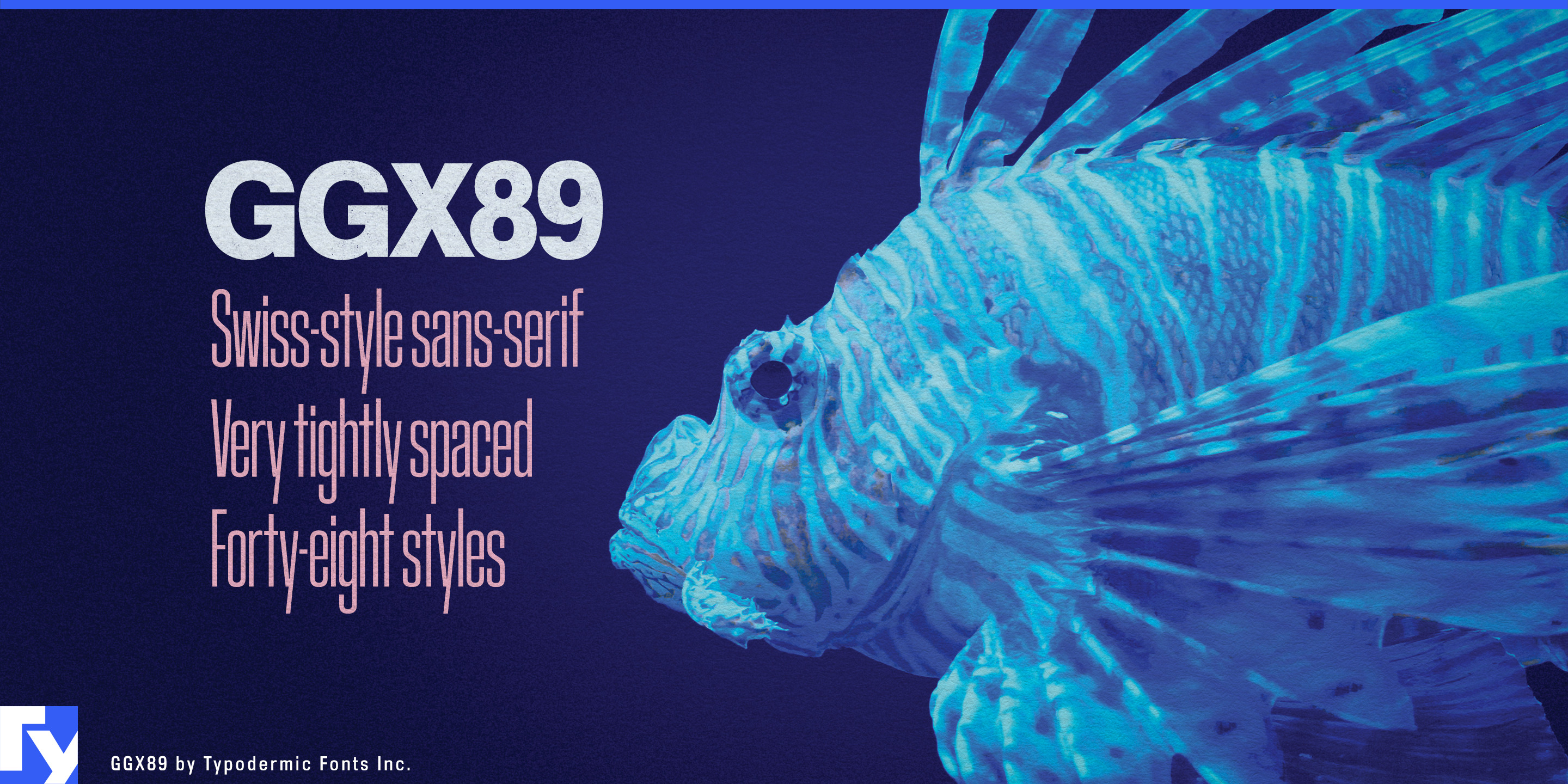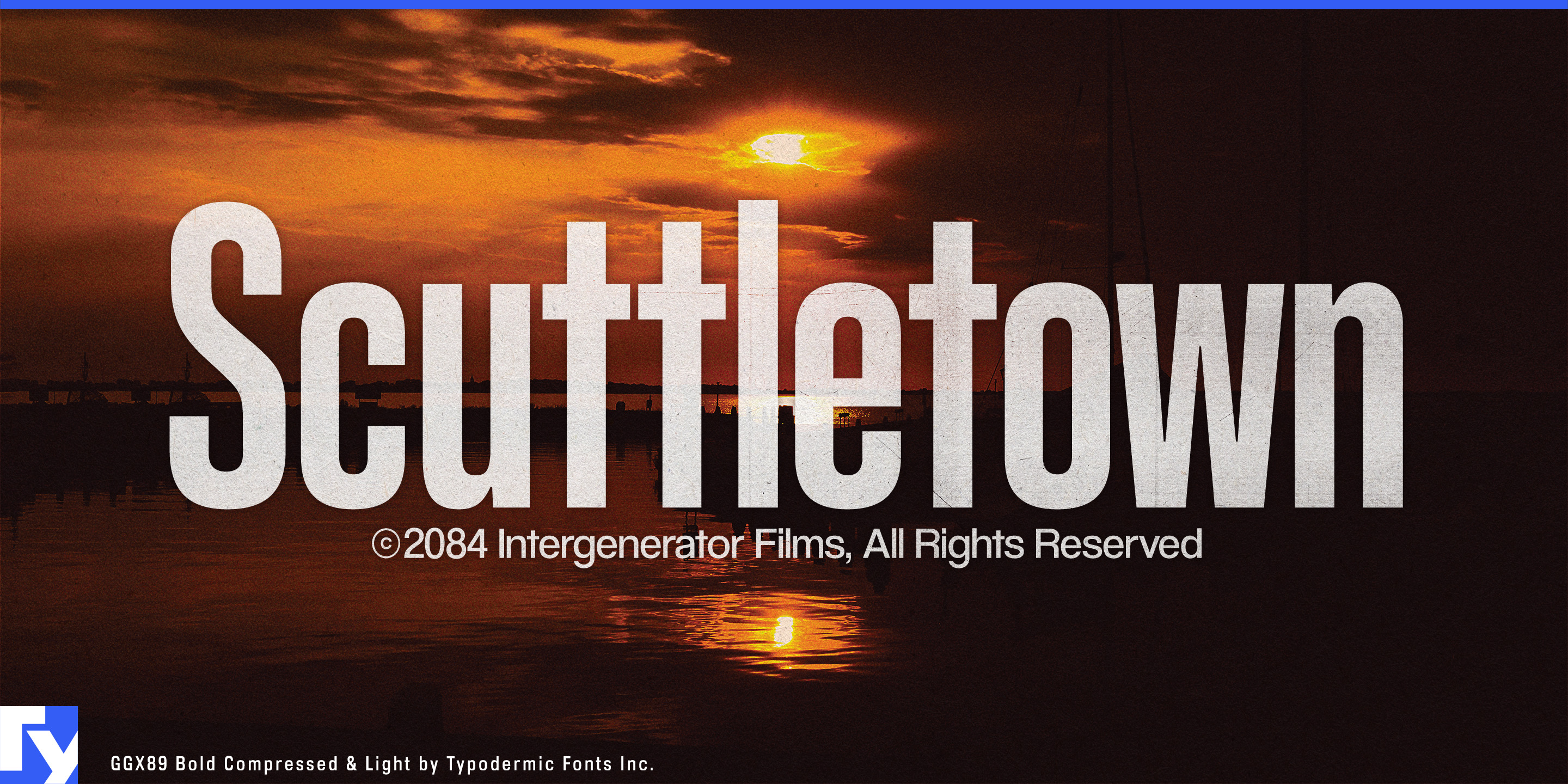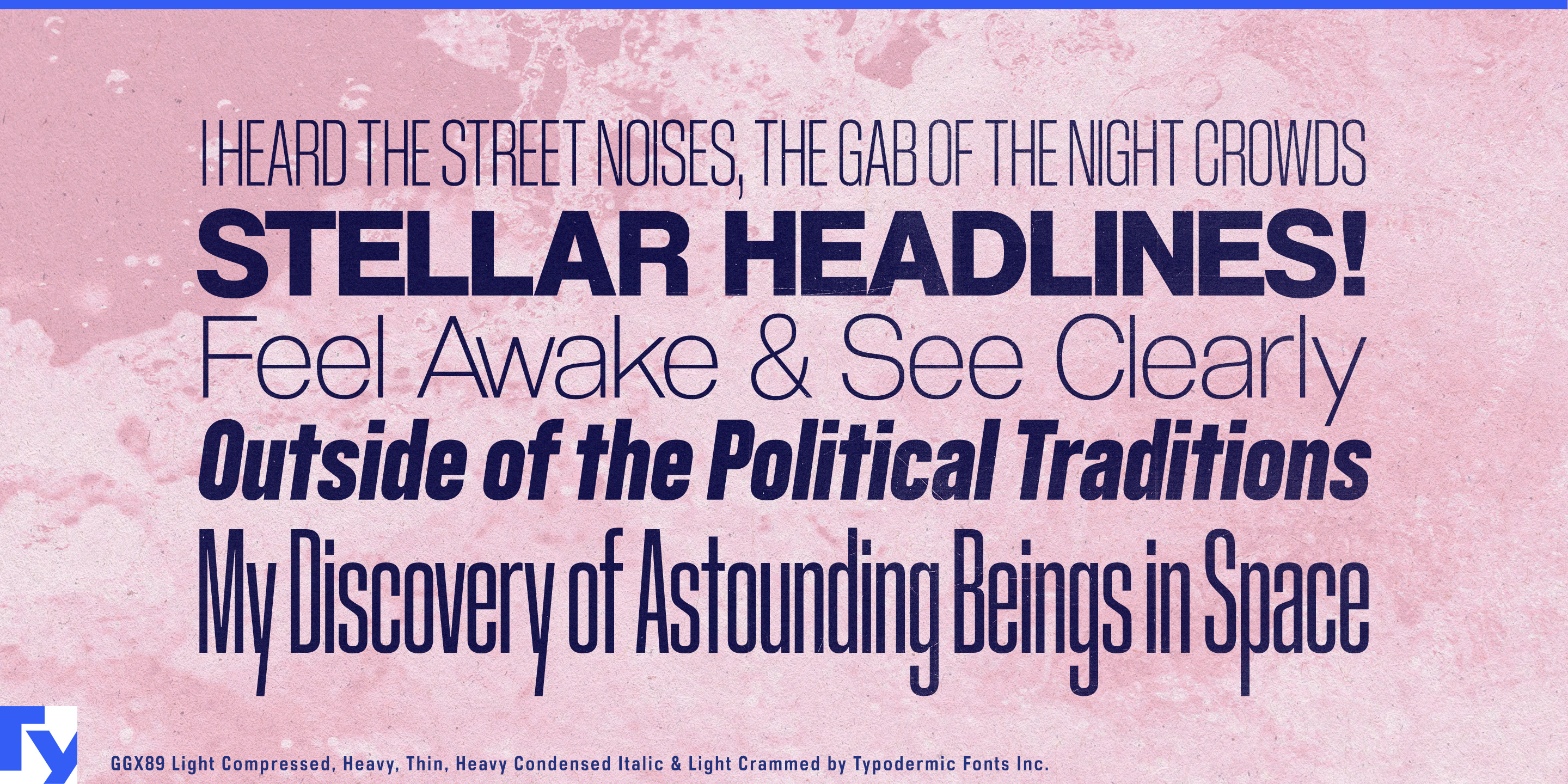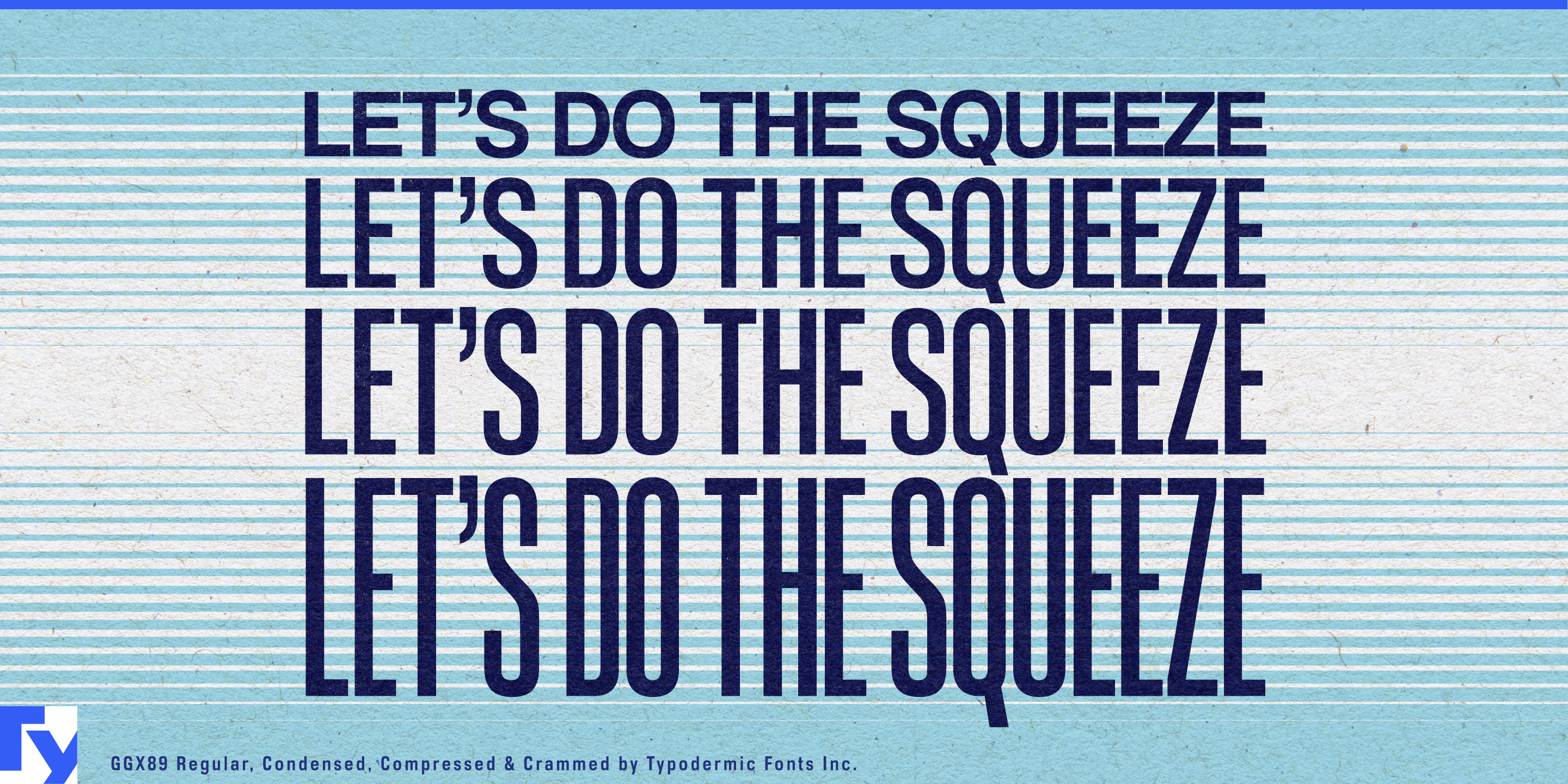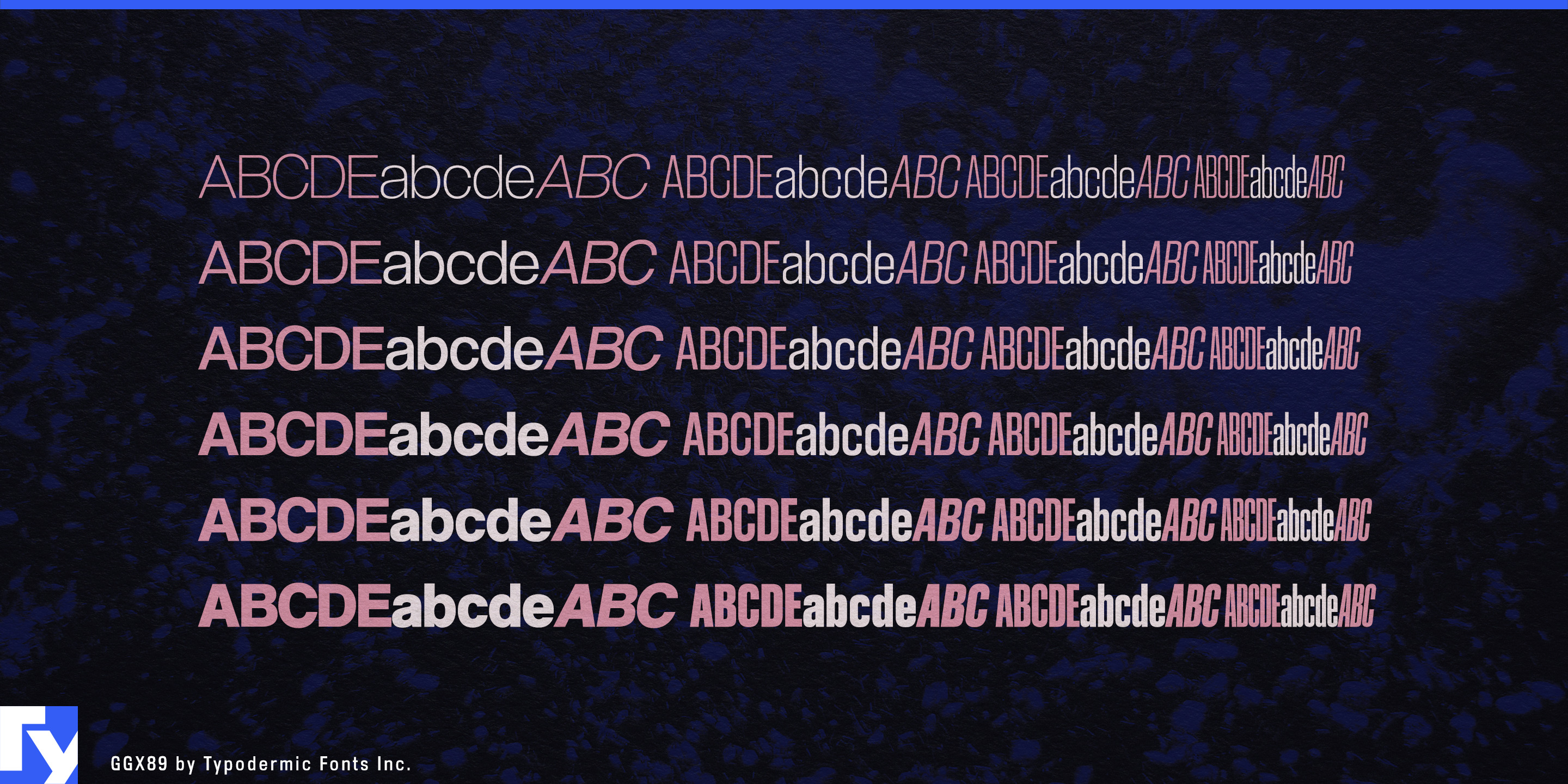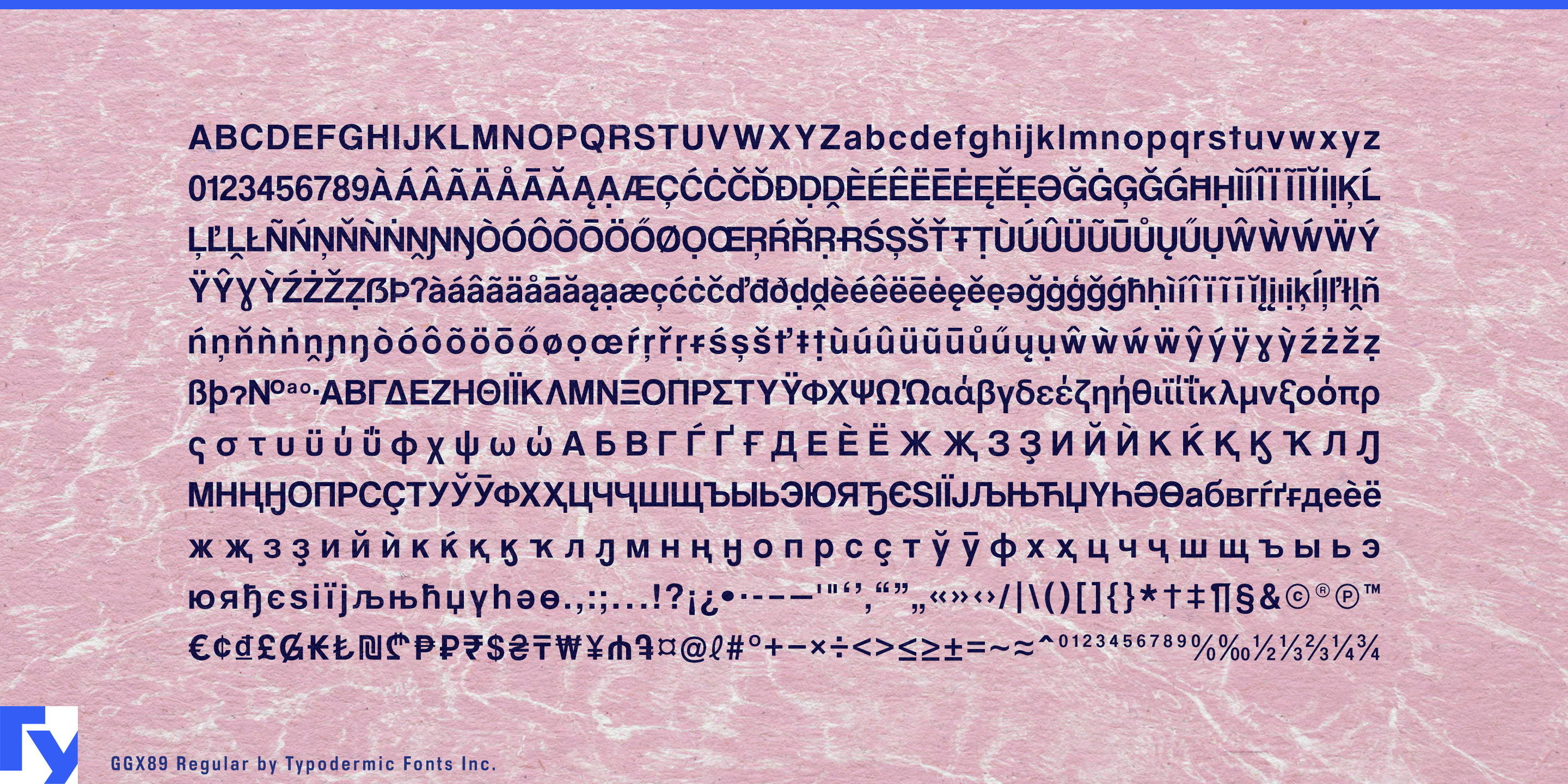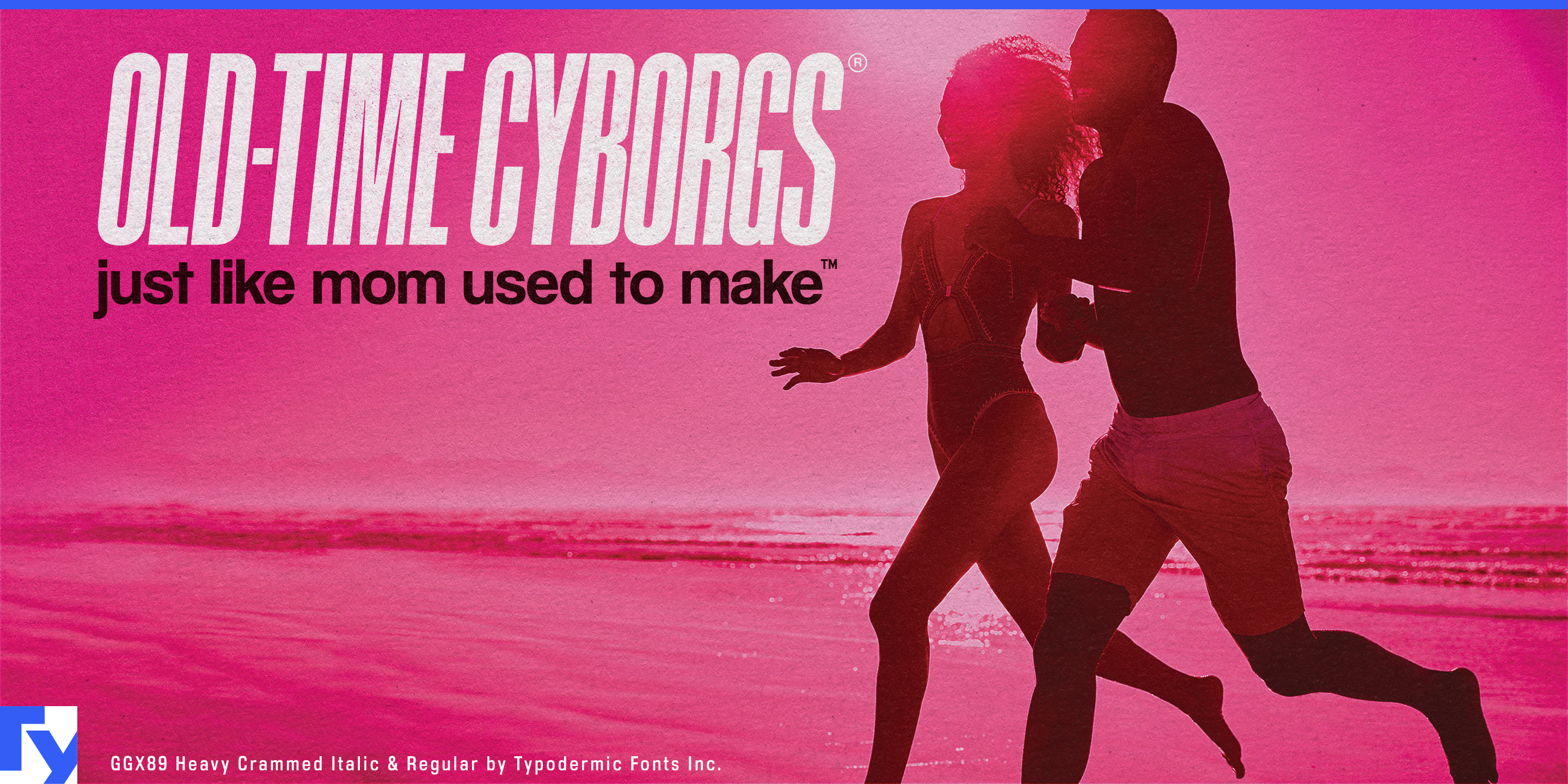
Ggx89
Ggx89 is Swiss display typography with the tightening already done.
A general-purpose grotesque has to leave enough space to behave in paragraphs. Blow it up for a launch headline, model name or giant stage graphic and that sensible spacing can suddenly feel cautious. Ggx89 starts from the other end of the problem. It was built purely for display, so it has no obligation to behave politely in body copy.
Its dense spacing turns short headlines into compact graphic units, while Regular, Condensed, Compressed and Crammed widths give designers several ways to accommodate different names and phrases without simply shrinking the type. That makes Ggx89 especially useful for campaign systems where the wording changes constantly but the visual density needs to remain consistent.
Product launches are a natural fit. Consumer technology, appliances and mobility brands can use Ggx89 for model names, feature names and launch phrases across keynote screens, retail walls, trade-show graphics, social cards and video. Automotive campaigns benefit from the width range especially well: a short model name can spread confidently in the regular widths, while longer vehicle, trim or technology names can move into Condensed, Compressed or Crammed without abandoning the same tightly controlled character.
Fashion and footwear campaigns use the same kind of oversized, abbreviated language. Collection names, designer collaborations, sneaker models and campaign phrases often function almost as image. Ggx89’s lighter weights can remain tightly packed without becoming heavy, while narrower styles can turn longer names into compact blocks for storefront graphics and launch imagery.
Sports promotion presents a similar practical problem. Athlete names, team matchups, tournament titles and championship graphics vary wildly in length but still have to fit one visual system. Ggx89 lets the designer change width rather than repeatedly shrinking or loosening the headline.
Streaming key art, entertainment campaigns, product keynotes and large corporate events all benefit from the same principle: short text set large, where spacing becomes part of the image.
Ggx88 was designed to breathe across functional interfaces; Ggx89 was designed to pack tightly into display. One handles the information, the other the statement.
Ggx89 does not need to be tracked into display typography. It starts there.